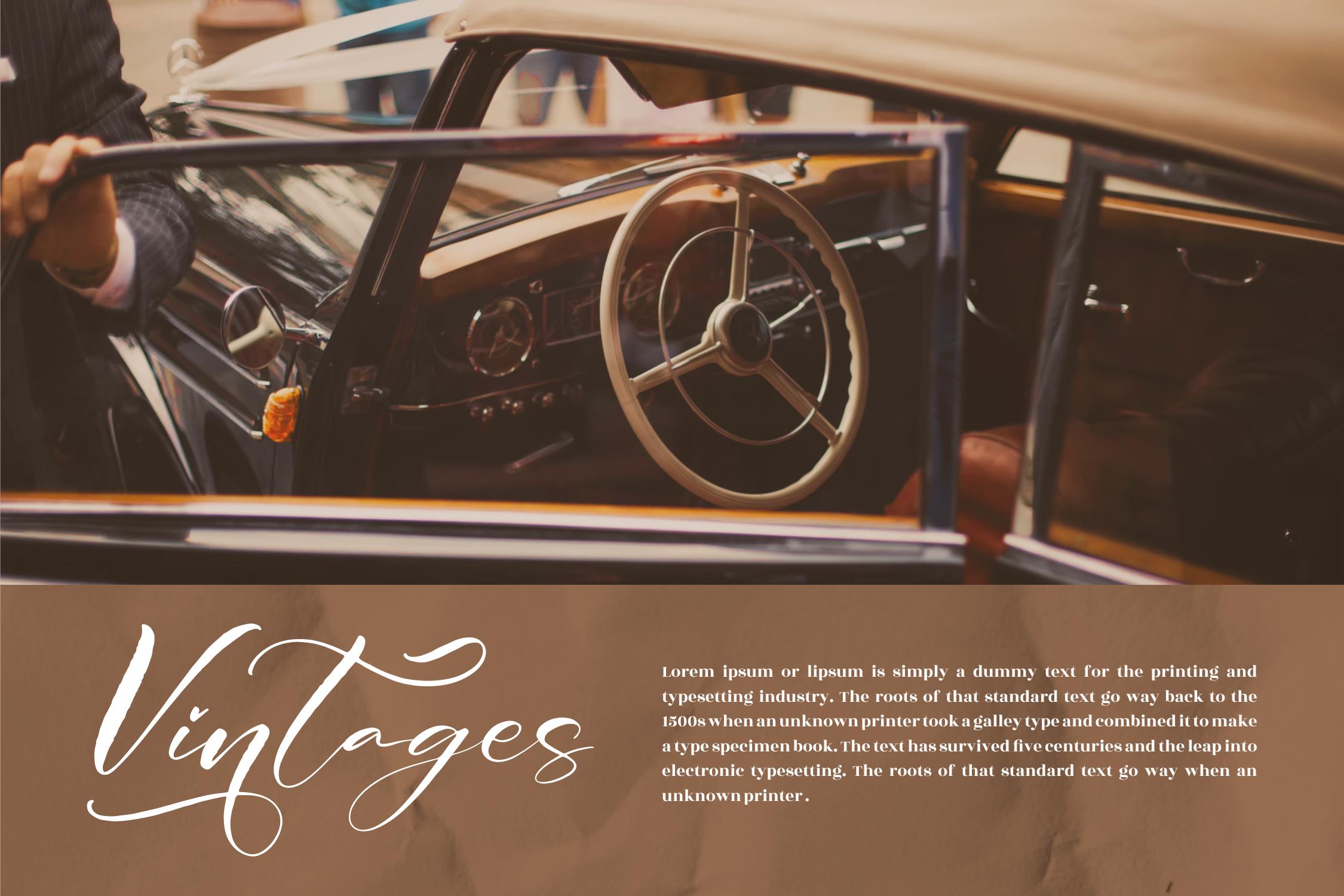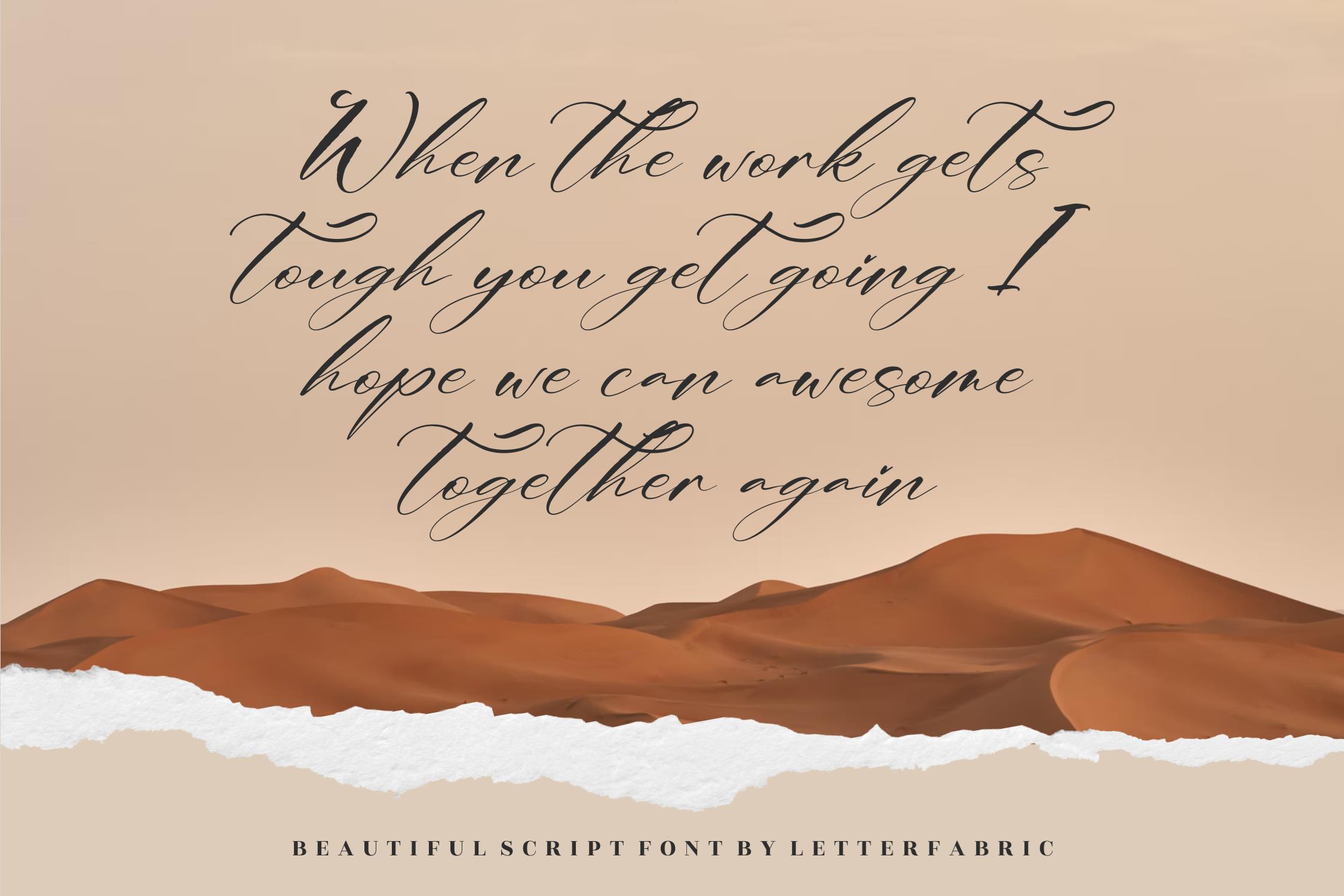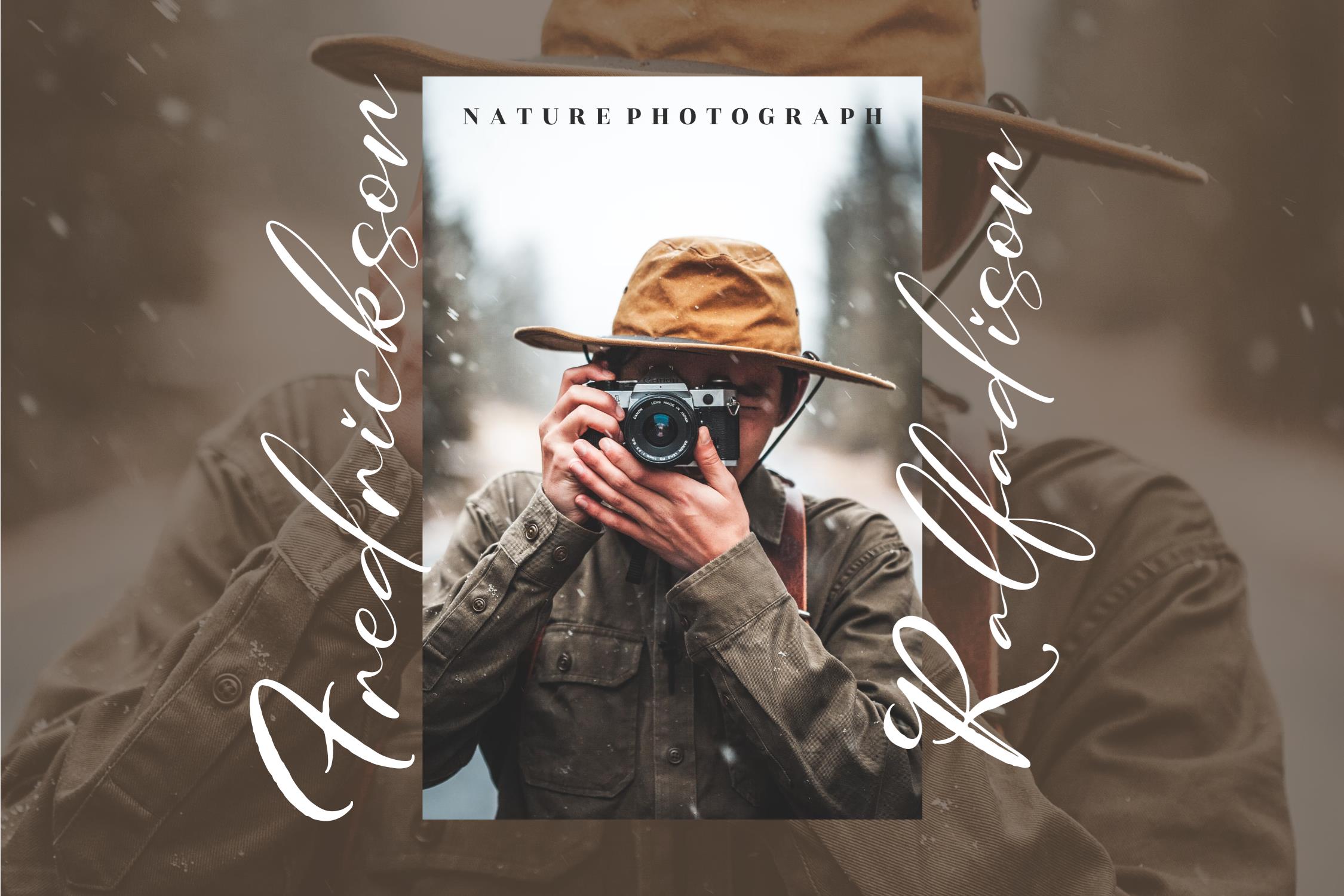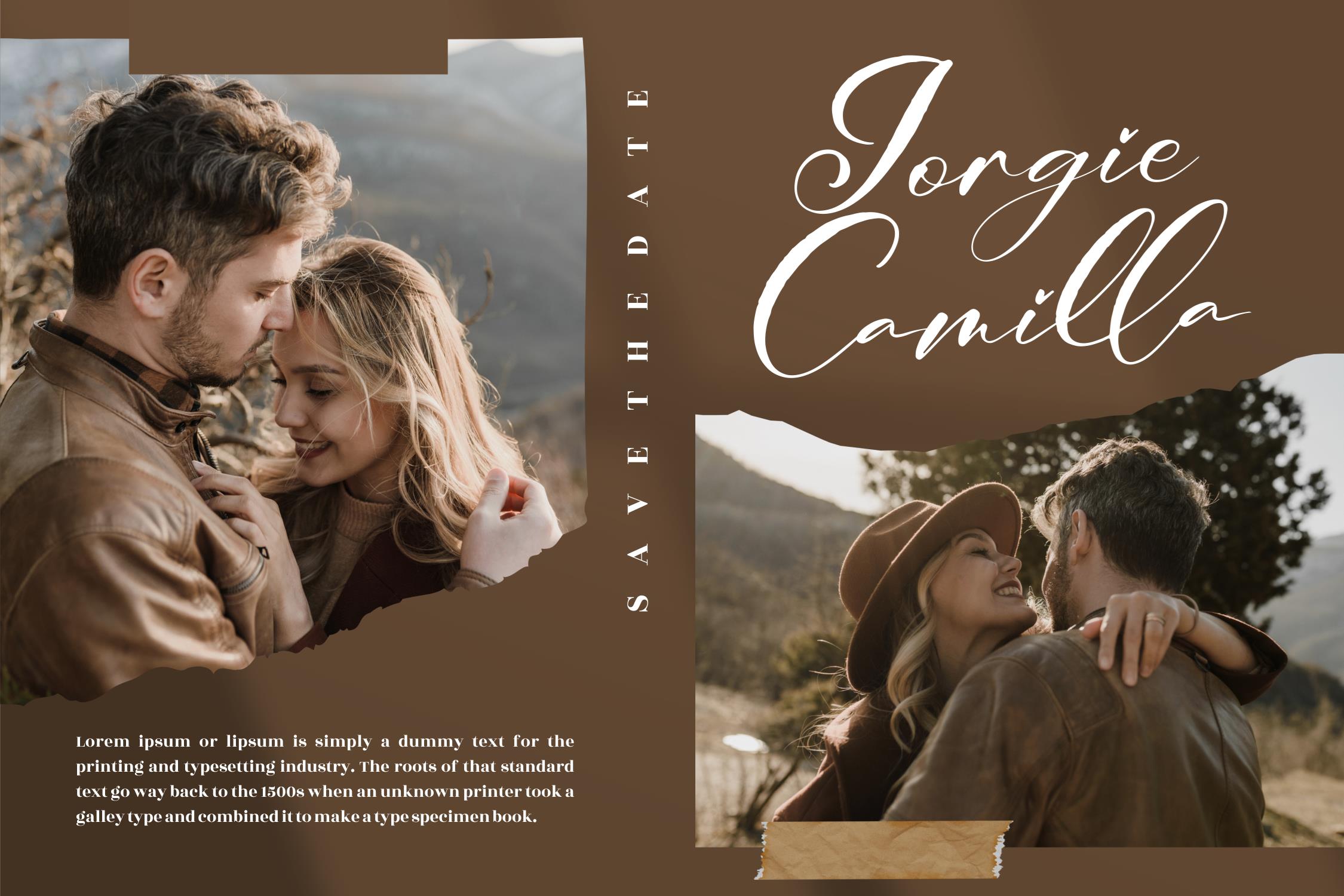
Gishelle Vaghan Script Font
This is a beautiful script font, suitable for any projects such as: logos, branding projects, homeware designs, product packaging, mugs, quotes, posters, shopping bags, t-shirts, book covers, name card, invitation cards, greeting cards, label, photography, watermark, special events, and all your other lovely projects that need a beautiful script taste.